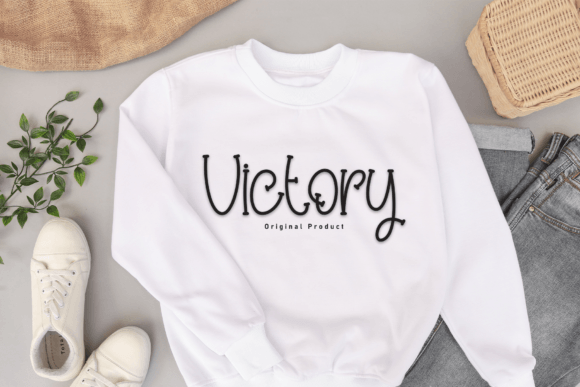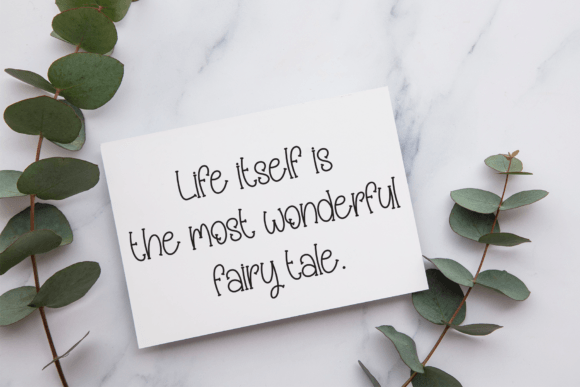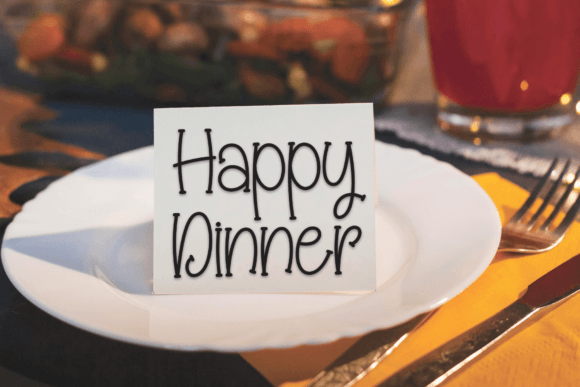
Romantic Christmas Font Font
Romantic Christmas is a sweet and friendly handwritten font. Cute and fun, this font is ideal for writing wedding invitations, cards, or any other design that might need a fun touch!